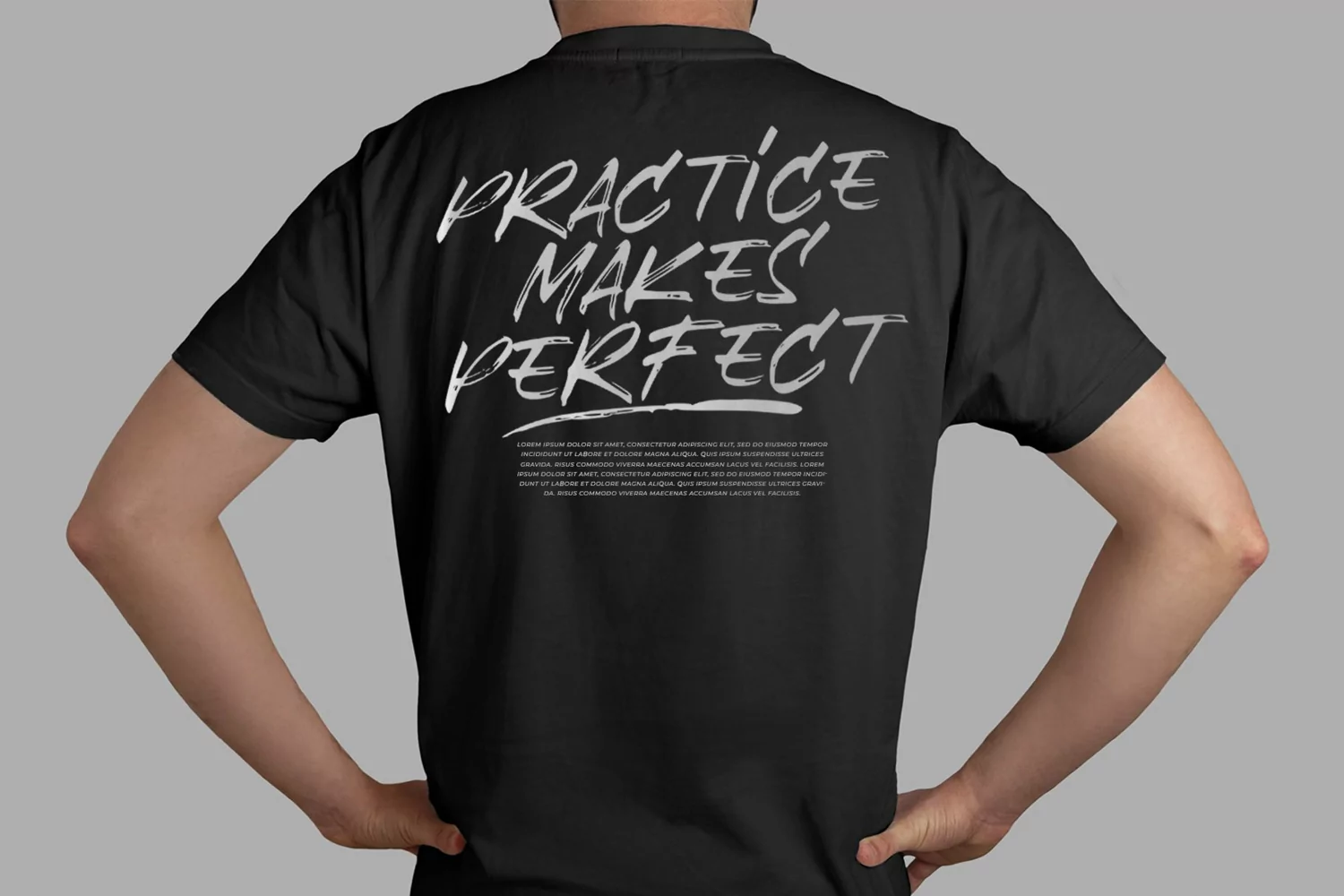
Brushio is a textured brush typeface. Perfect for display, poster, quotes, film, craft needs, book cover, business card, packaging, merchandise, branding, logo, logotype, header, title, and many more.